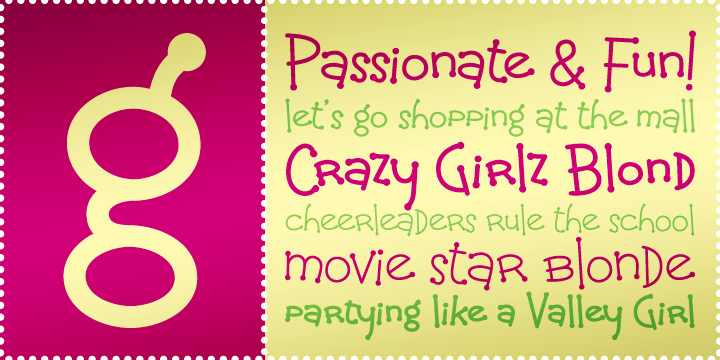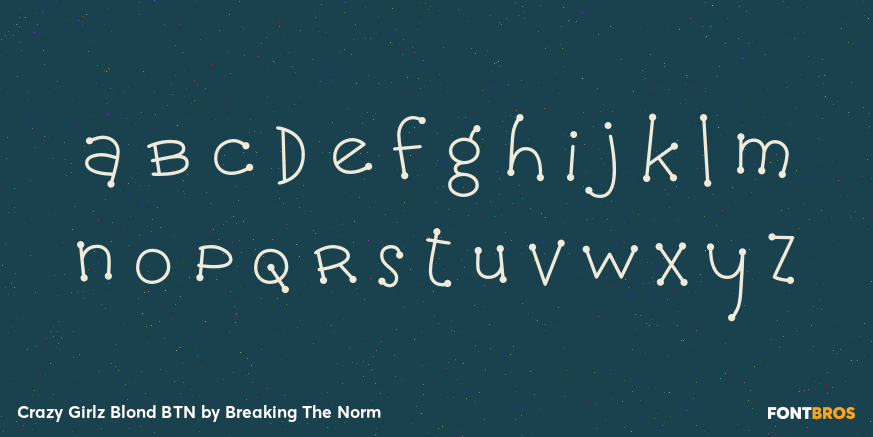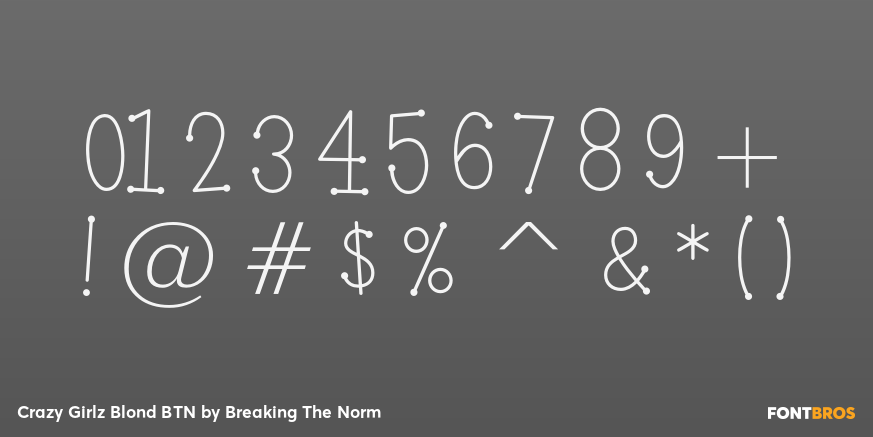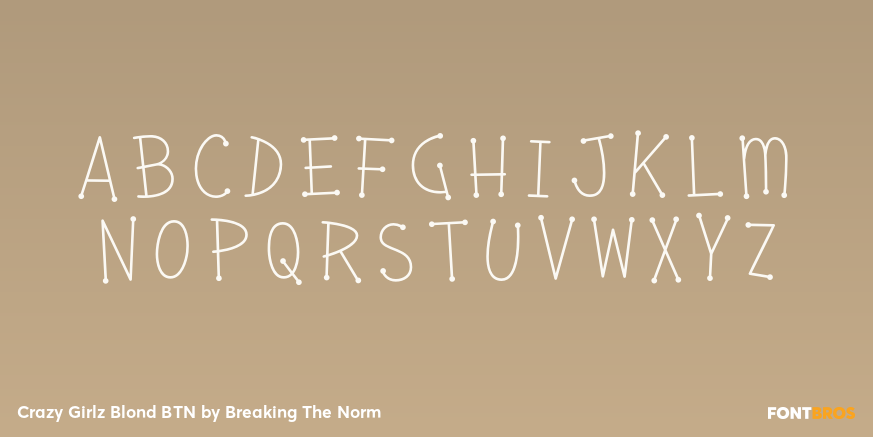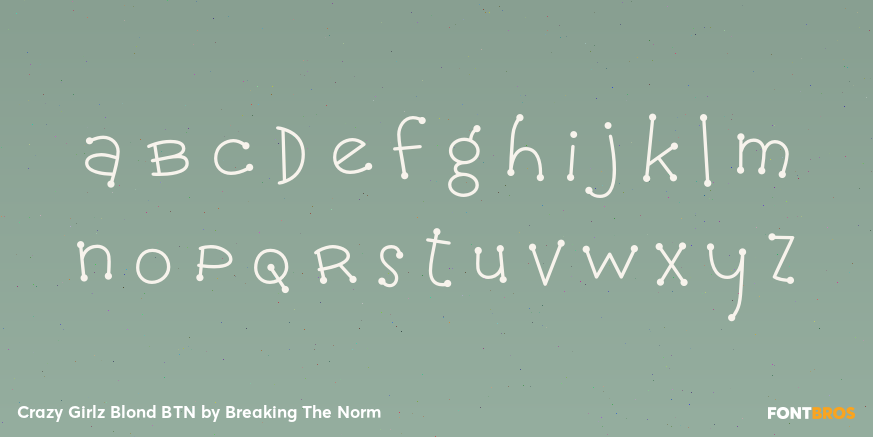
Crazy Girlz Blond BTN
Font Family by Breaking The Norm
Crazy Girlz Blond BTN is a playful display family with a bubbly, youthful personality. Designed with a fun teen-centered spirit, it brings a lively handmade charm that works especially well for scrapbook pages, journaling, party signs, greeting cards, craft projects, and playful branding. The Blond styling gives the family a soft, rounded feel, with bubbly serif details that add extra sweetness and personality. Available in Light, Regular, and Bold weights, Crazy Girlz Blond BTN is a cheerful choice for designs that want to feel energetic, friendly, and full of character.